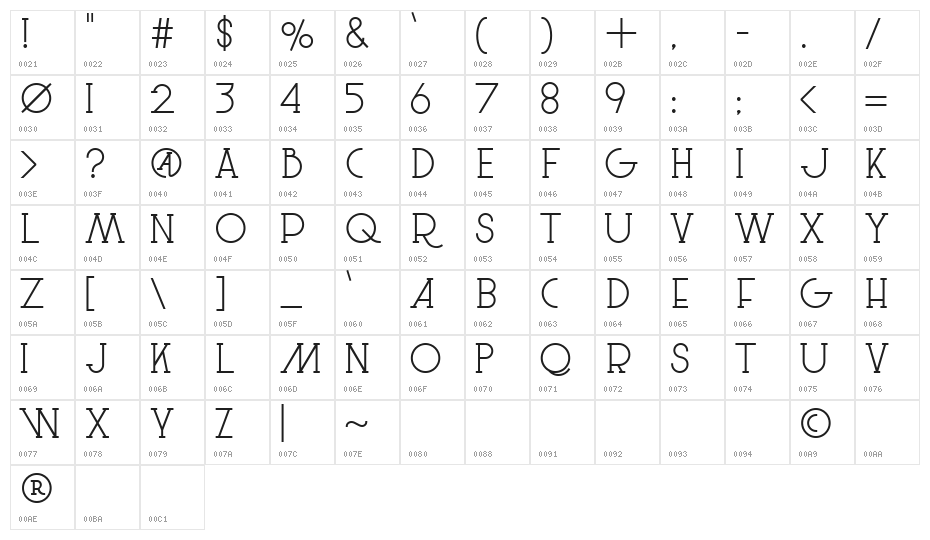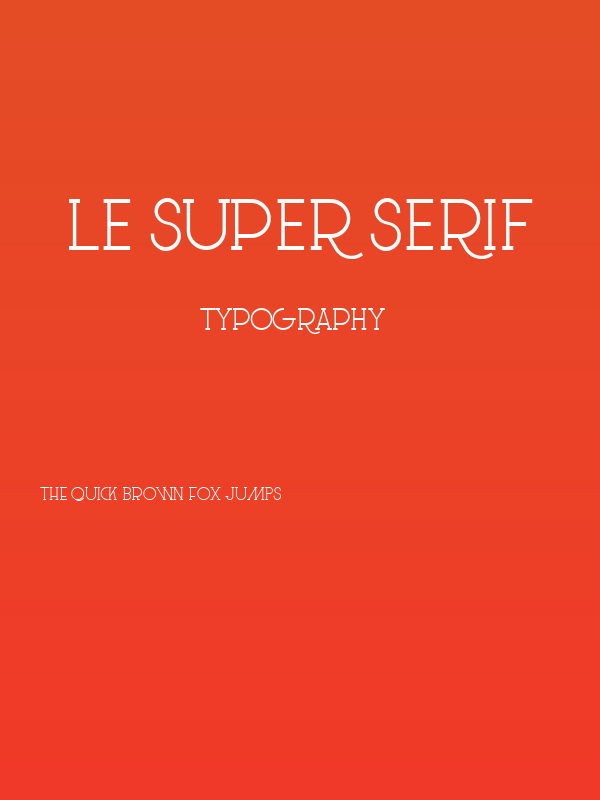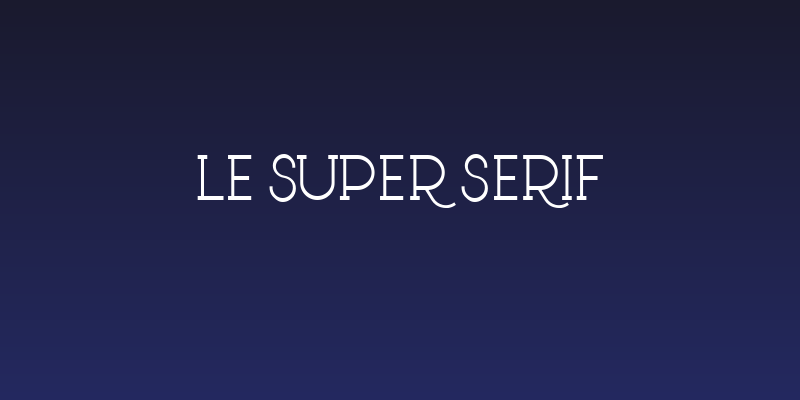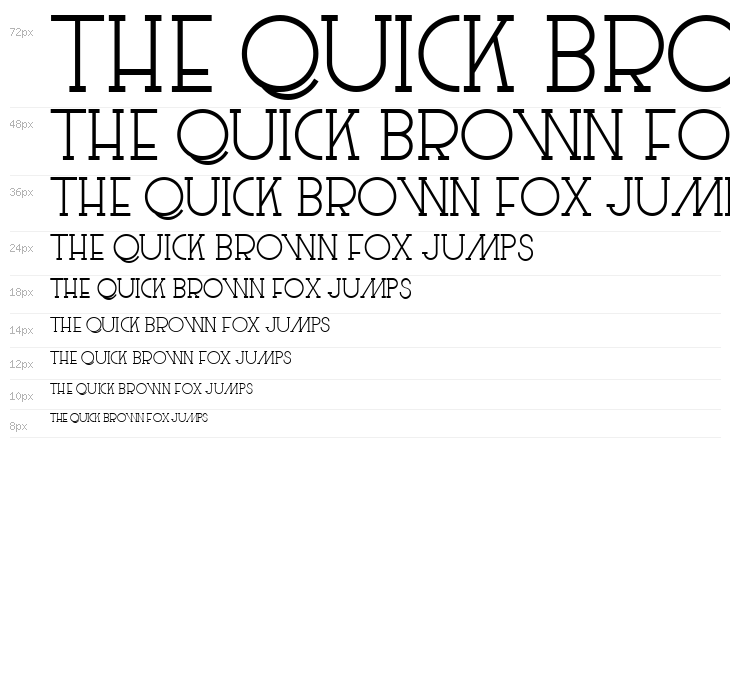
Le Super Serif Font
Le Super Serif Description
This typeface features a classic serif style with a modern twist, characterized by its elegant and refined letterforms. The uppercase letters exhibit a traditional serif structure, while the lowercase letters maintain a consistent design that complements the uppercase. The numerals are distinct and clear, making them highly legible. Special characters are thoughtfully designed to match the overall aesthetic, providing a cohesive look across all glyphs. The font's balanced proportions and clean lines make it versatile for various design applications.